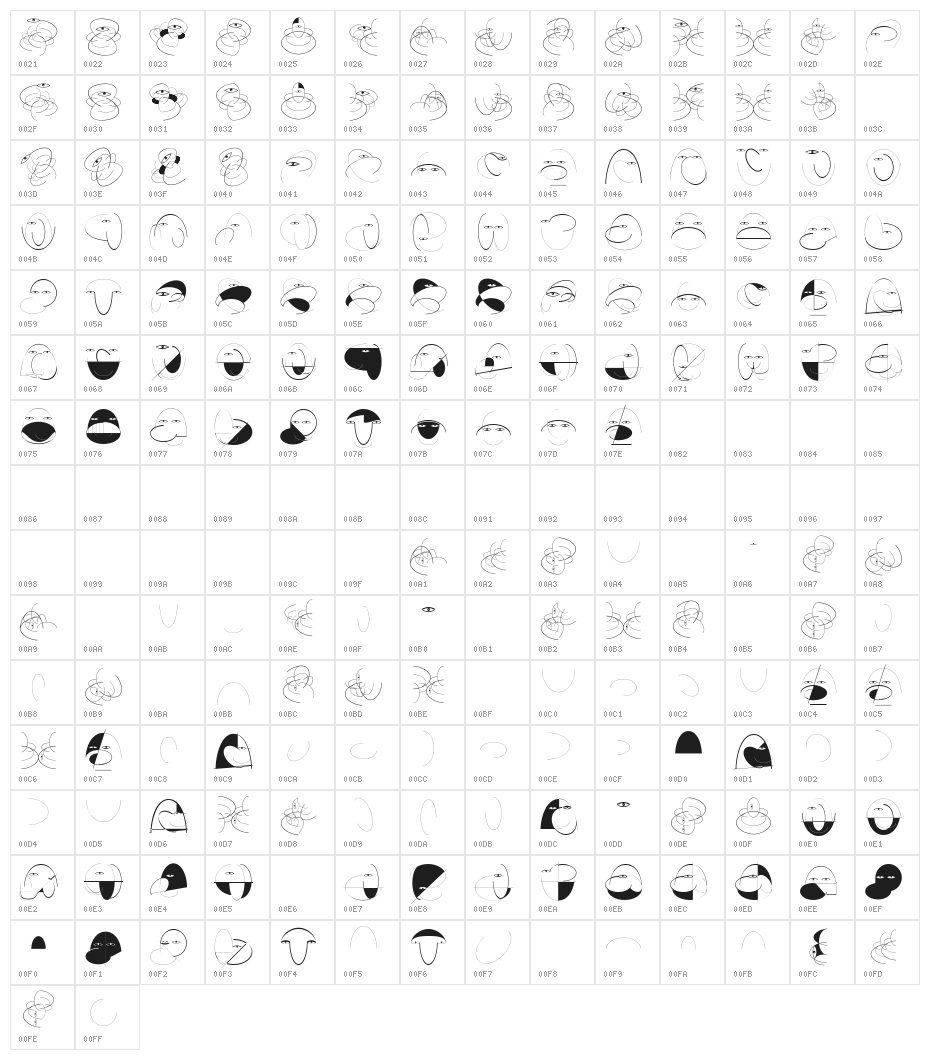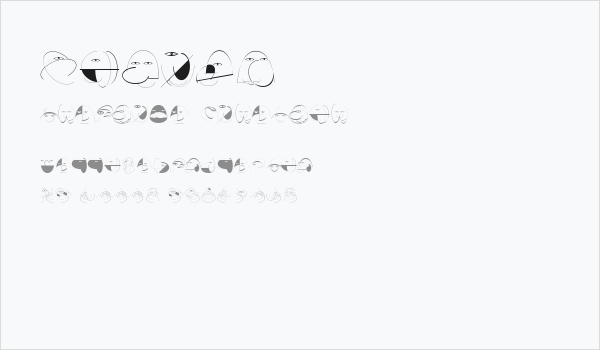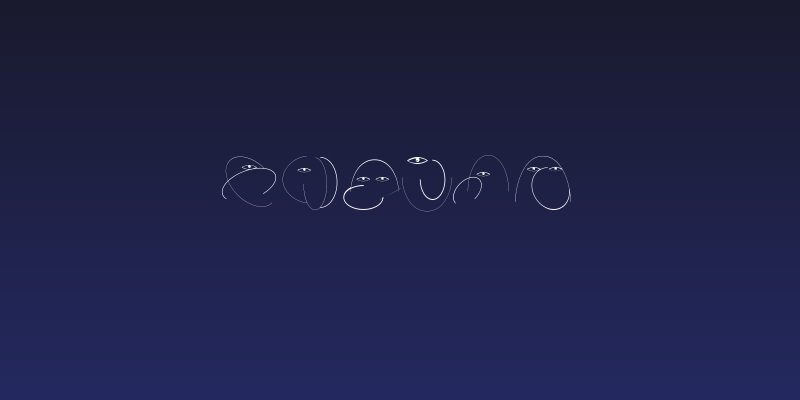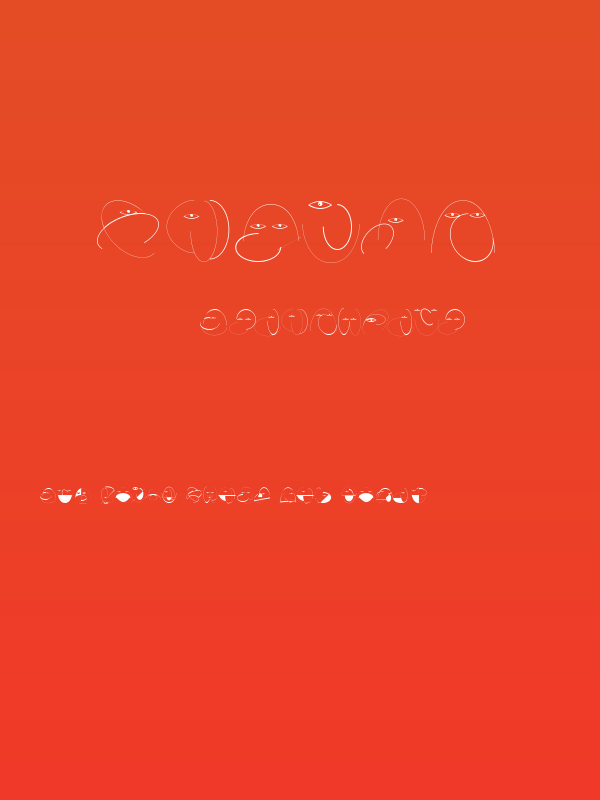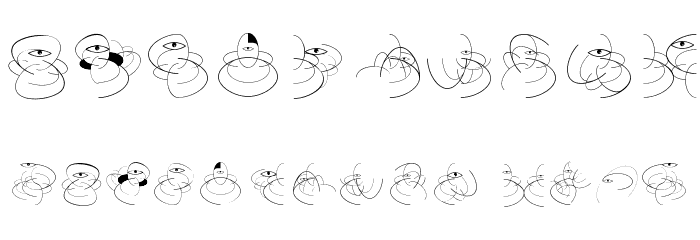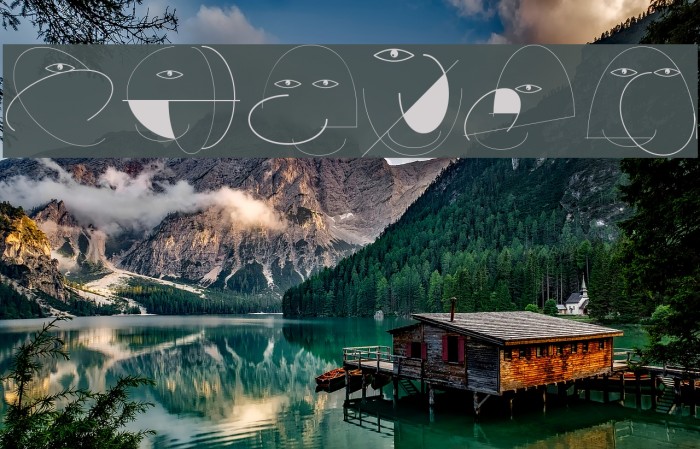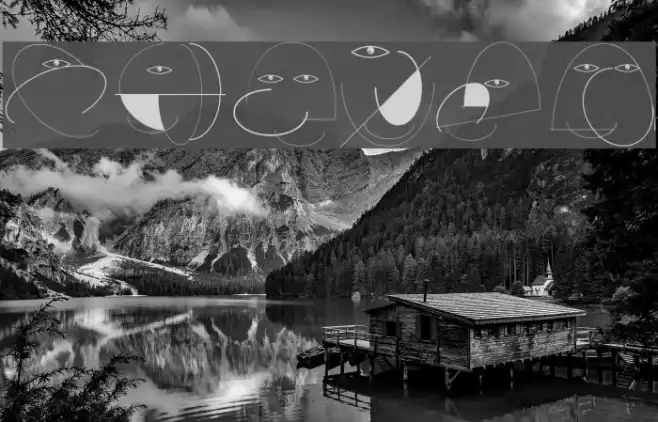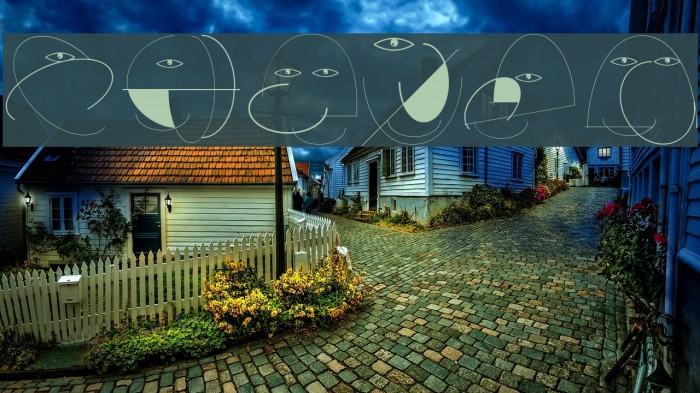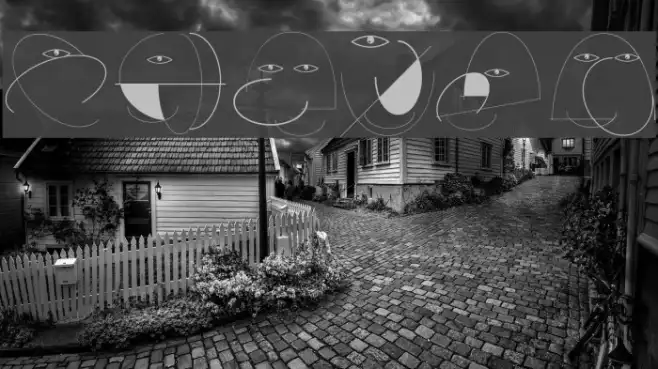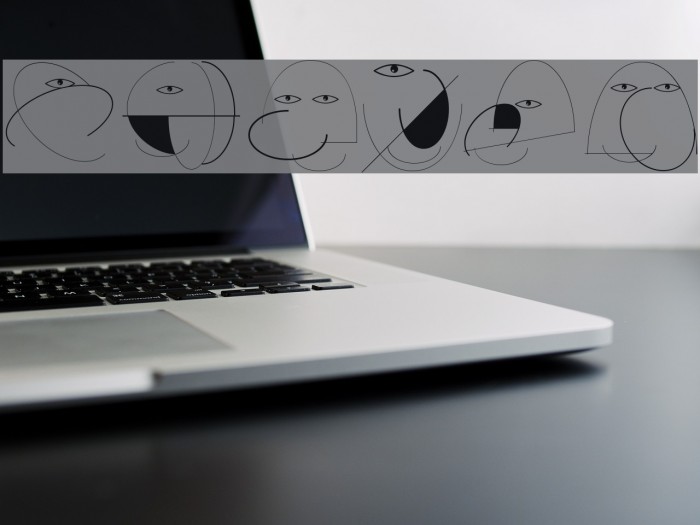
Bowing Font
Bowing Description
This font is a highly creative and whimsical design, characterized by its playful and abstract representation of letters. Each character is uniquely crafted with a combination of curves and lines that form expressive faces, giving the font a lively and animated appearance. The design incorporates both positive and negative space effectively, creating a dynamic visual experience. The characters are not uniform in style, with some featuring bold, filled areas and others maintaining a more delicate, outlined look. This font is not intended for traditional readability but rather for artistic and decorative purposes, making it ideal for projects that require a unique and eye-catching visual element.
| Use Case | Logos, Posters, Artistic Designs |
| Proposed Projects | Ideal for artistic projects, children's books, creative posters, and unique branding materials. |